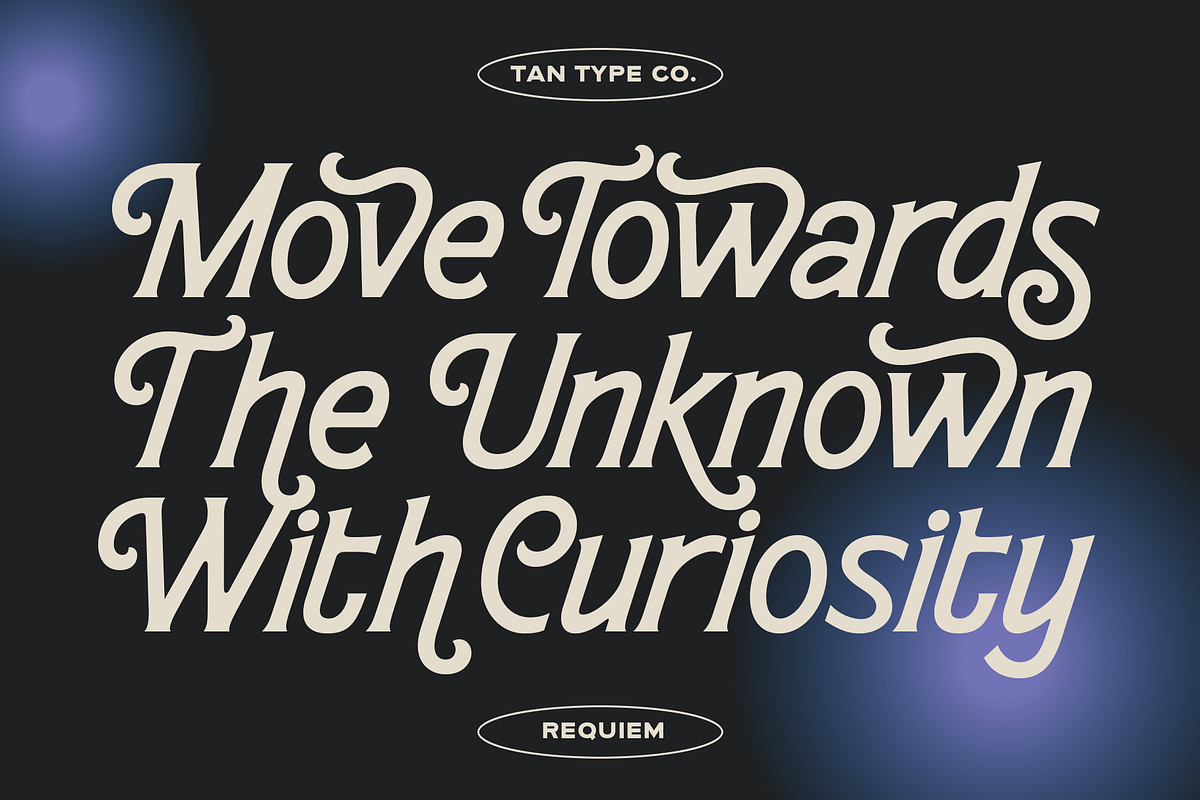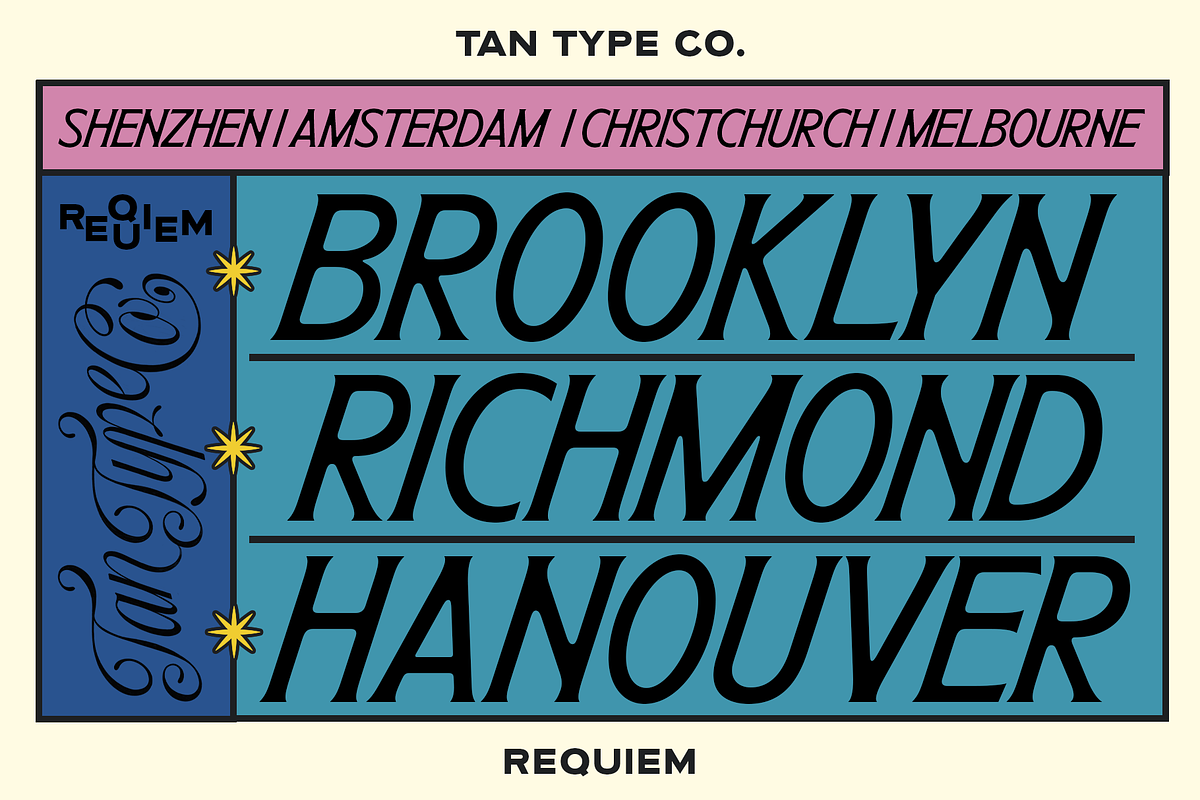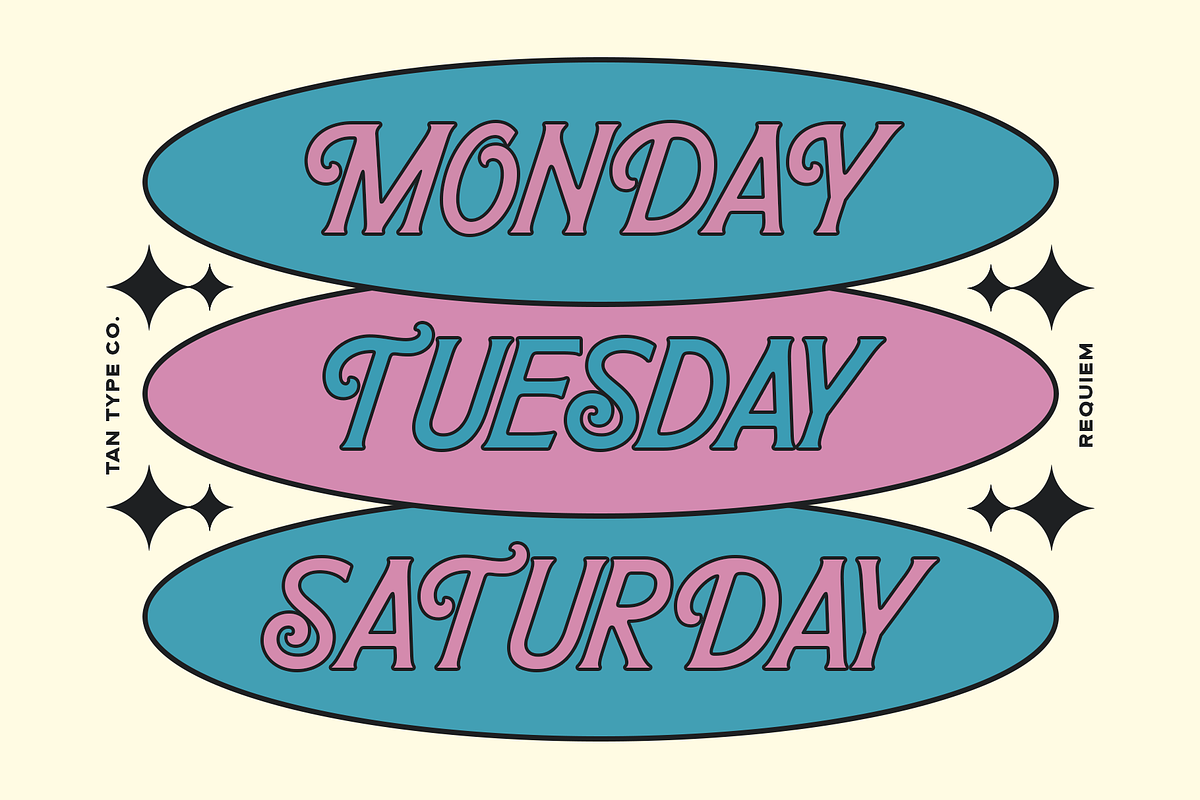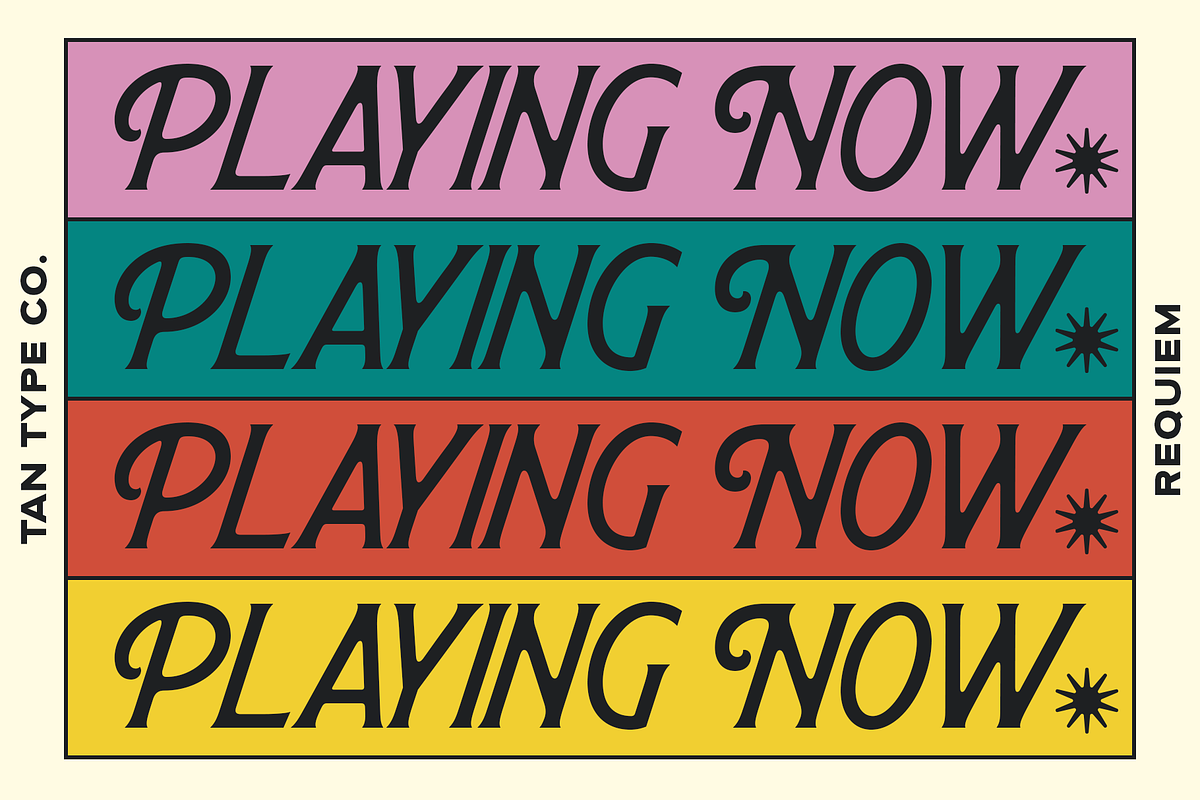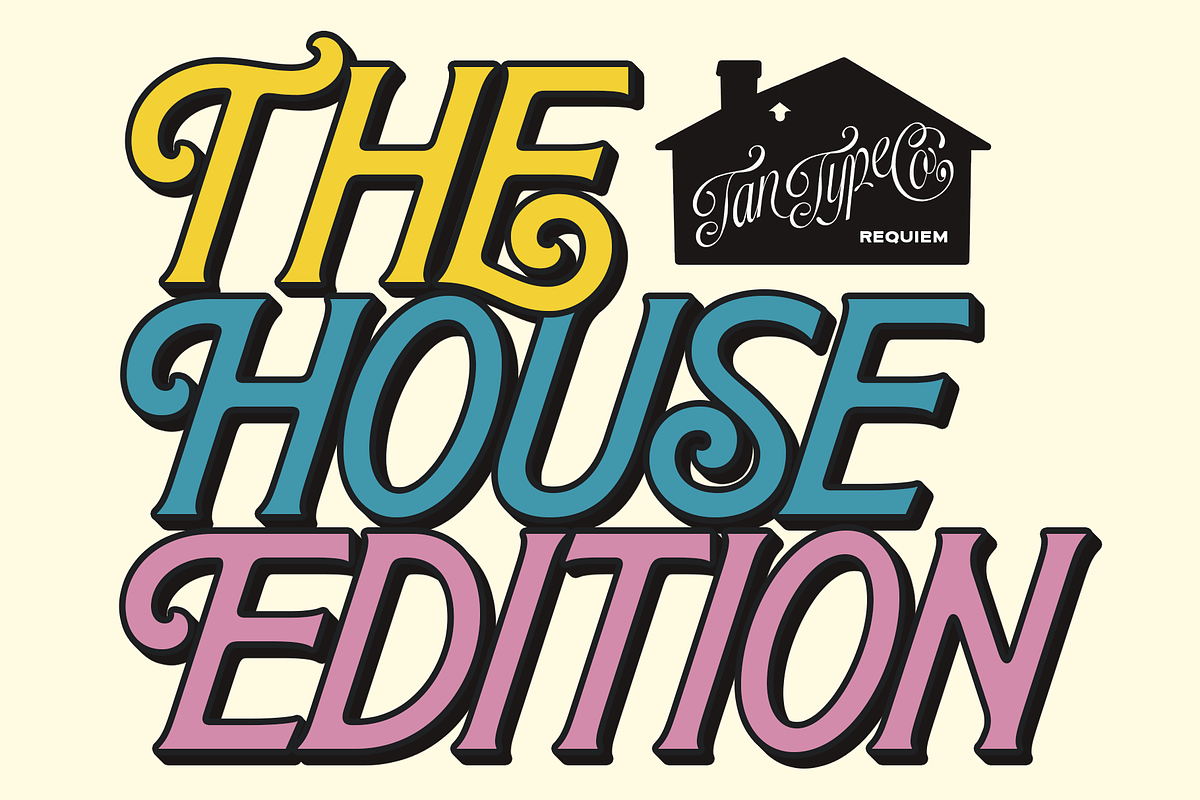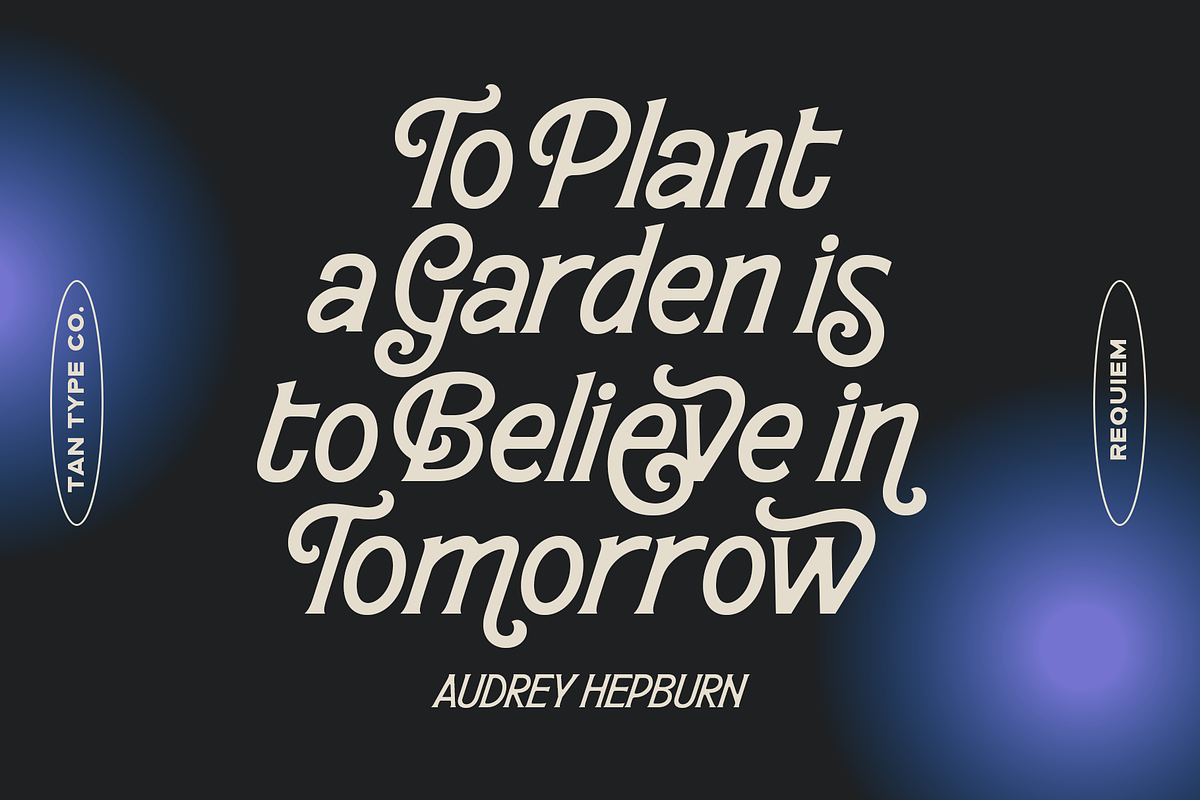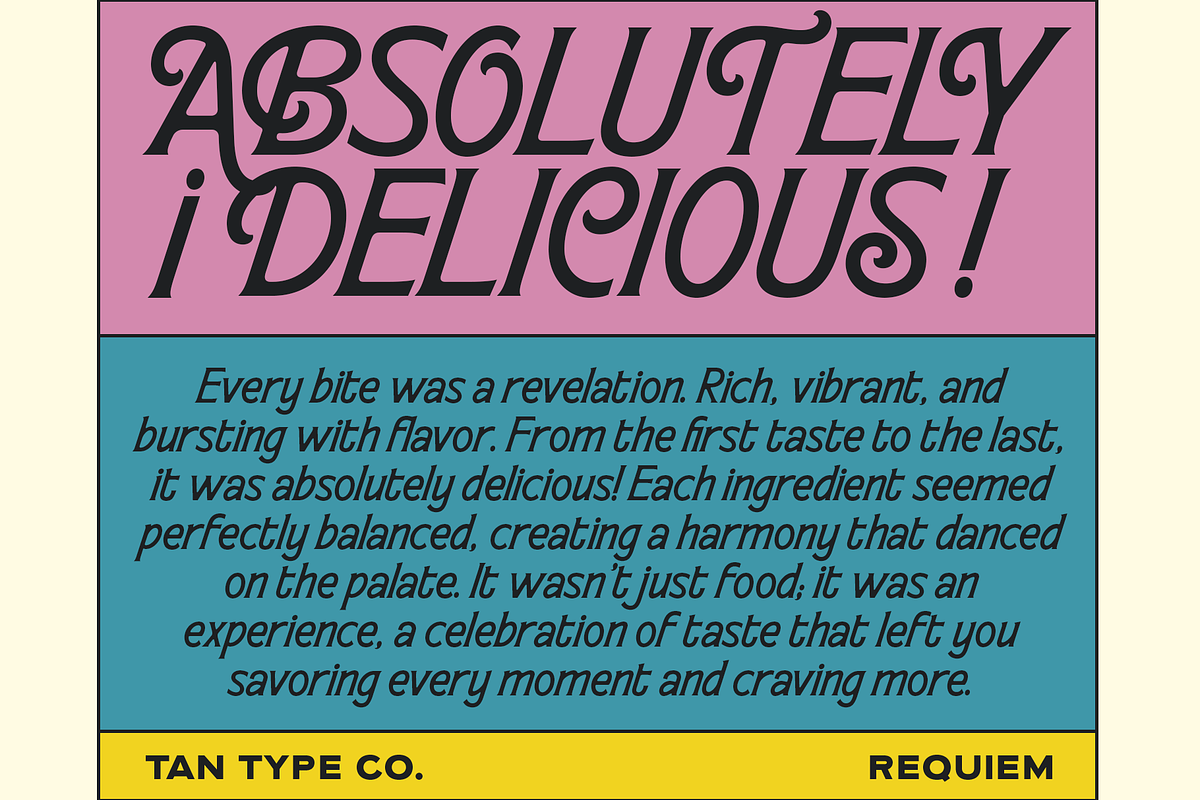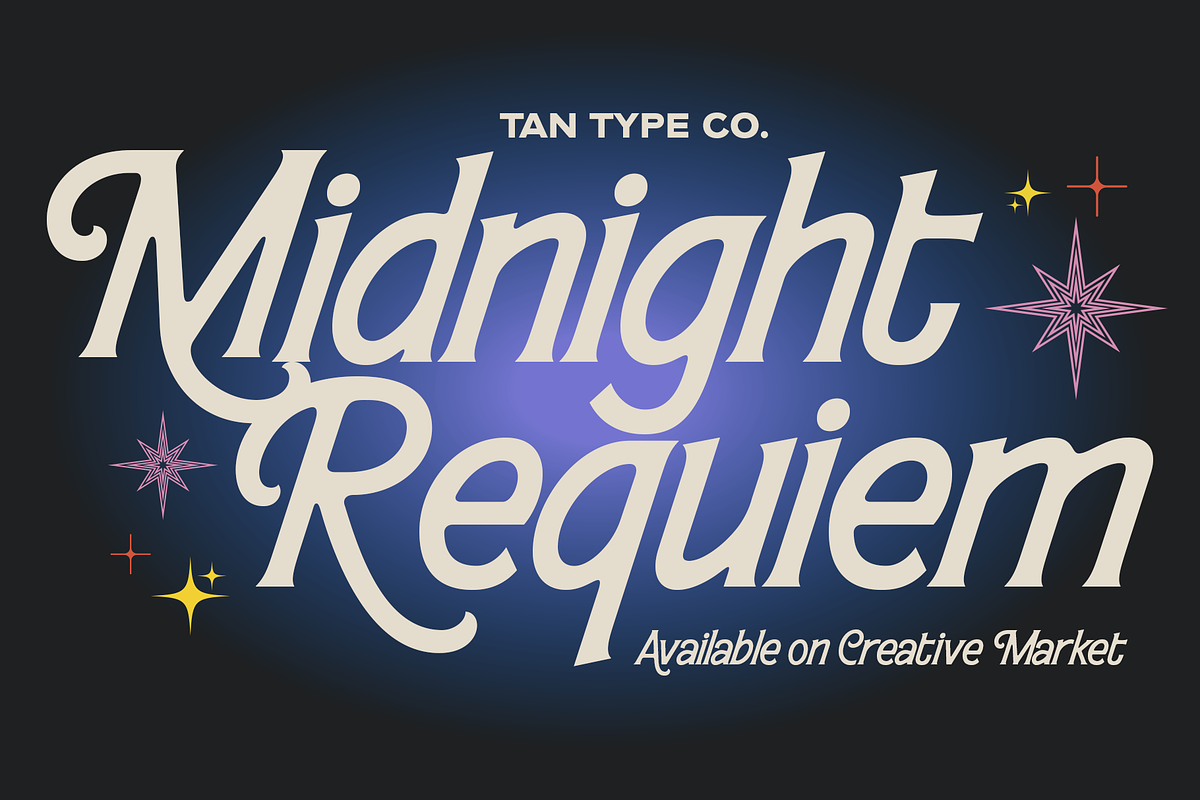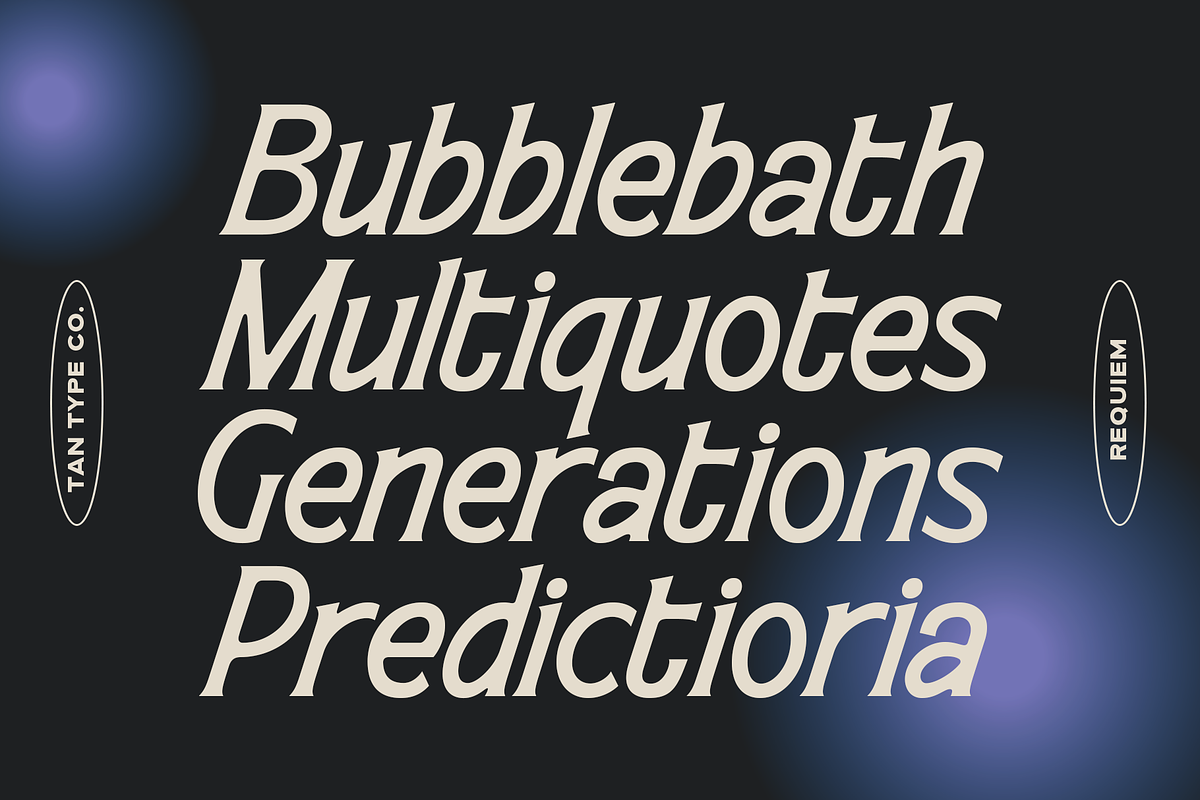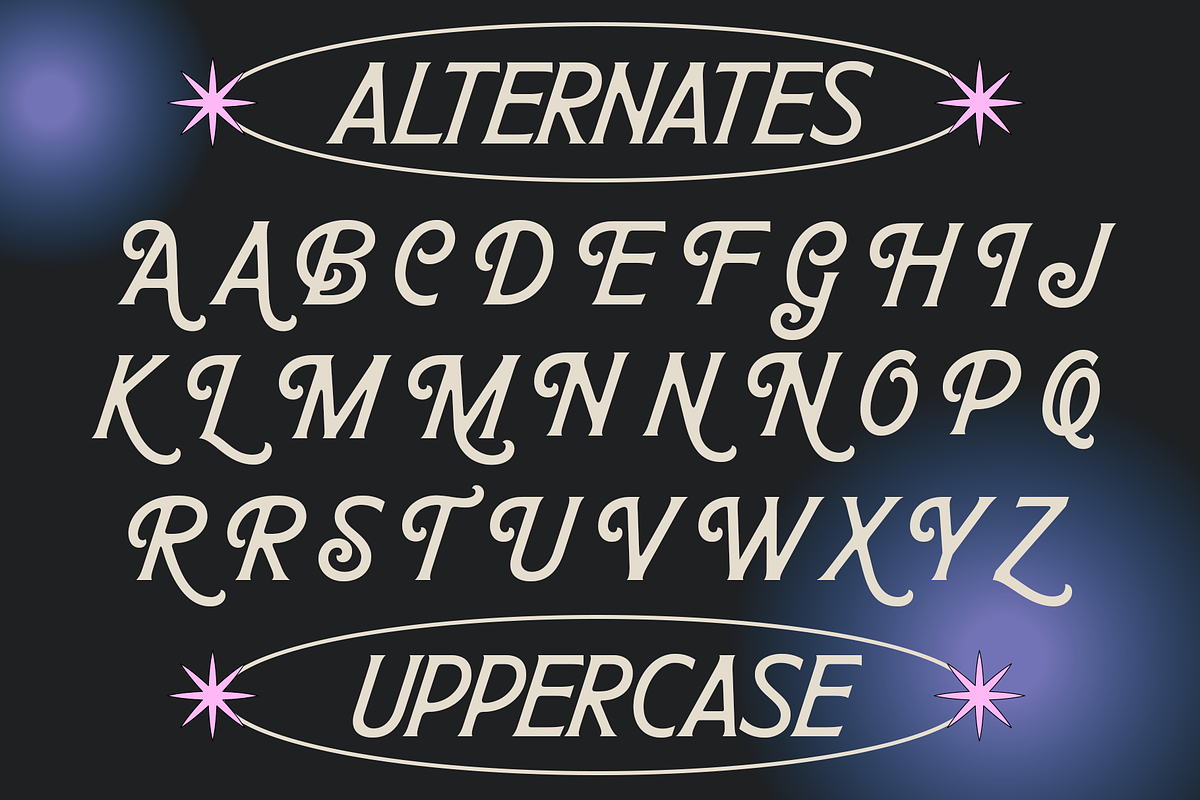
TAN - REQUIEM
TAN-Requiem is a refined monoline script with an elegant italic rhythm. With a rich set of alternate characters, it lets you craft lettering that feels fluid, sophisticated, and full of character. Ideal for branding, logos, packaging, invitations, and editorial design.